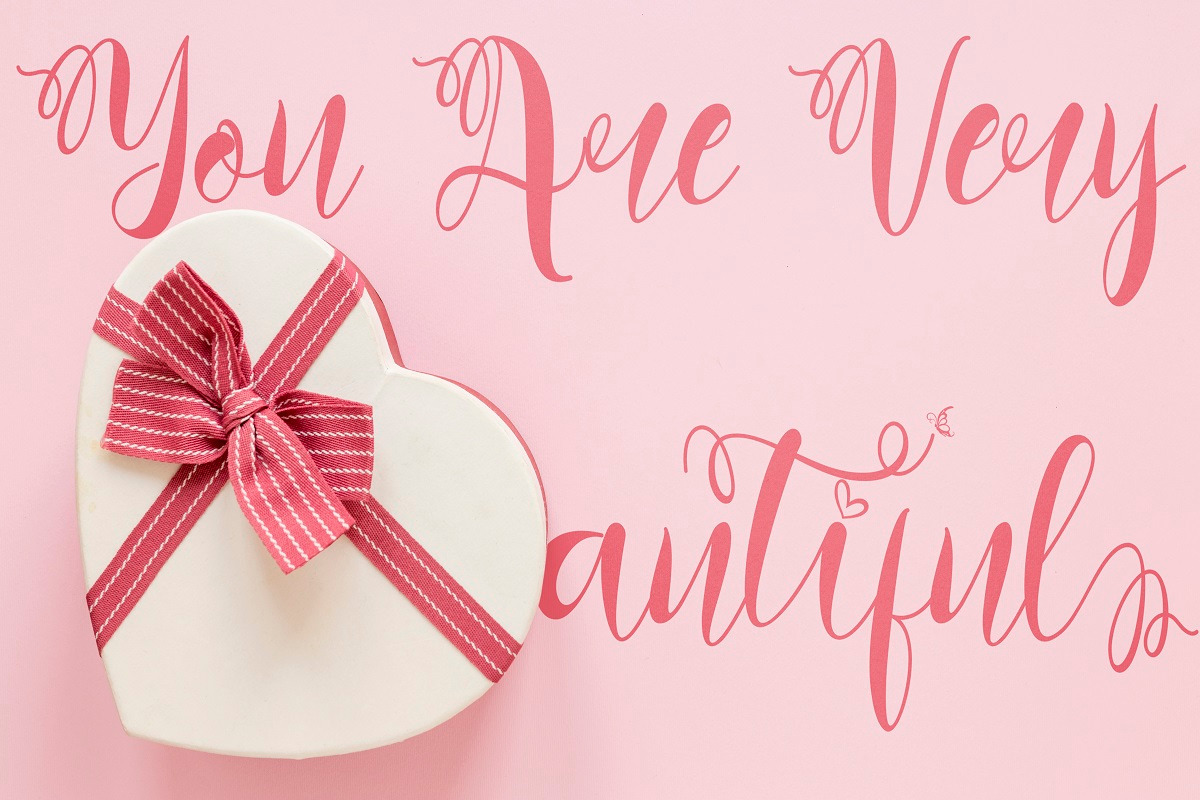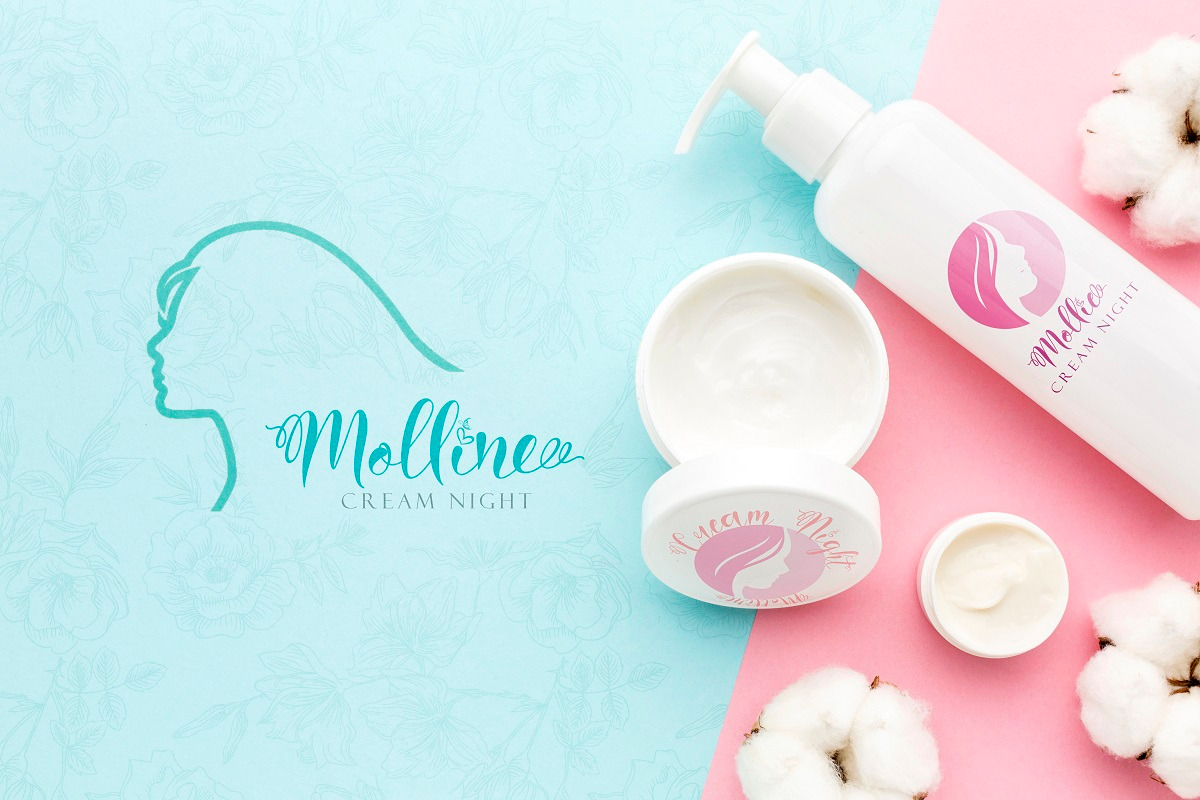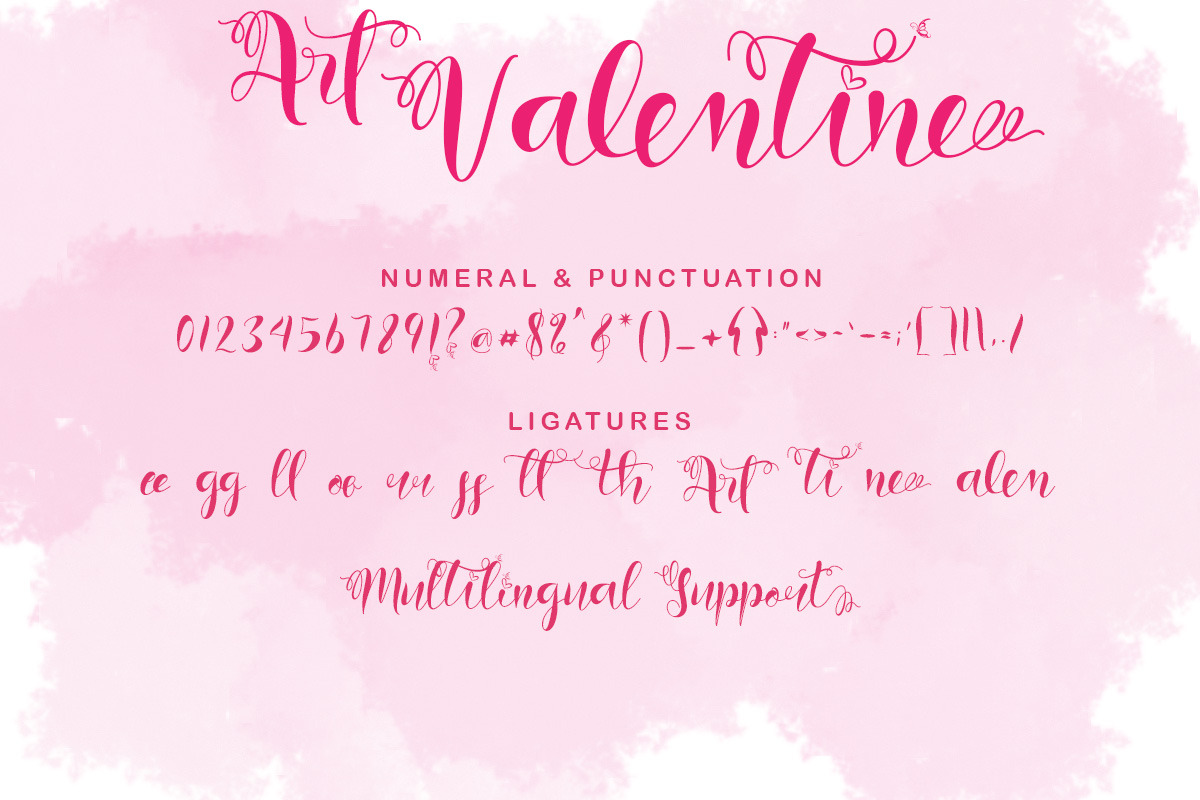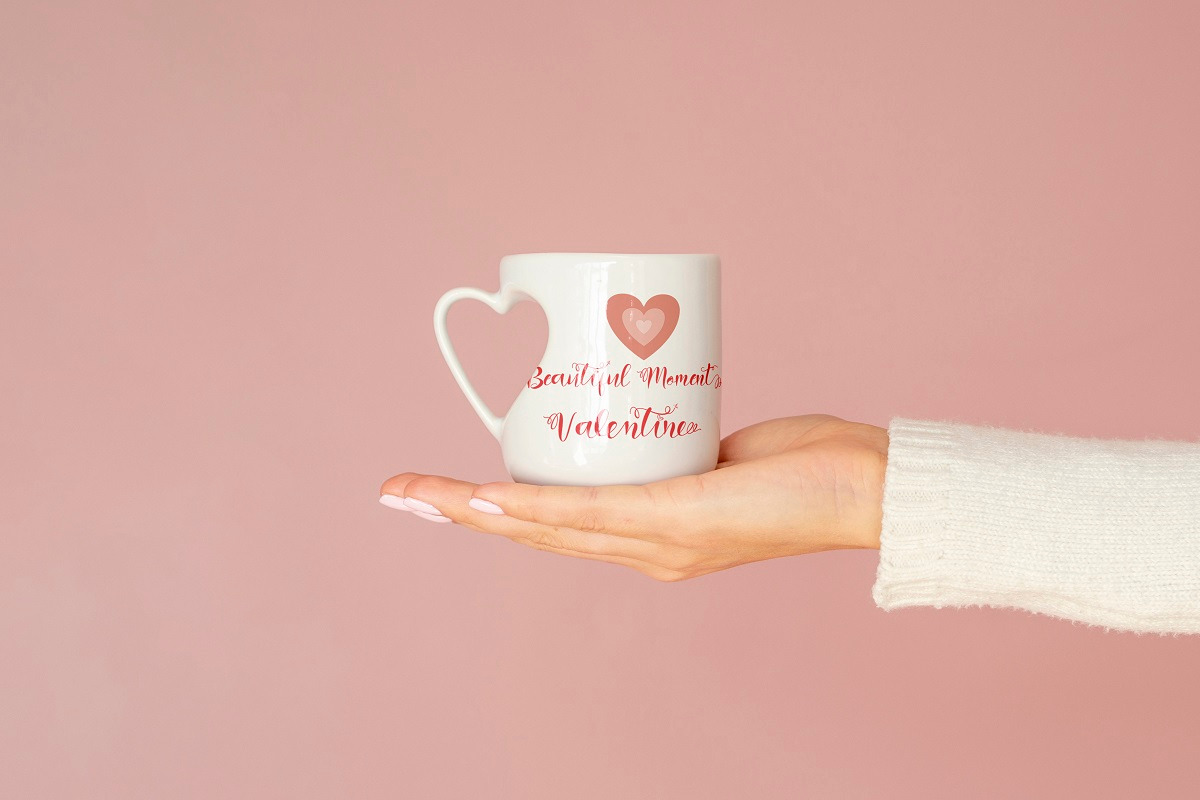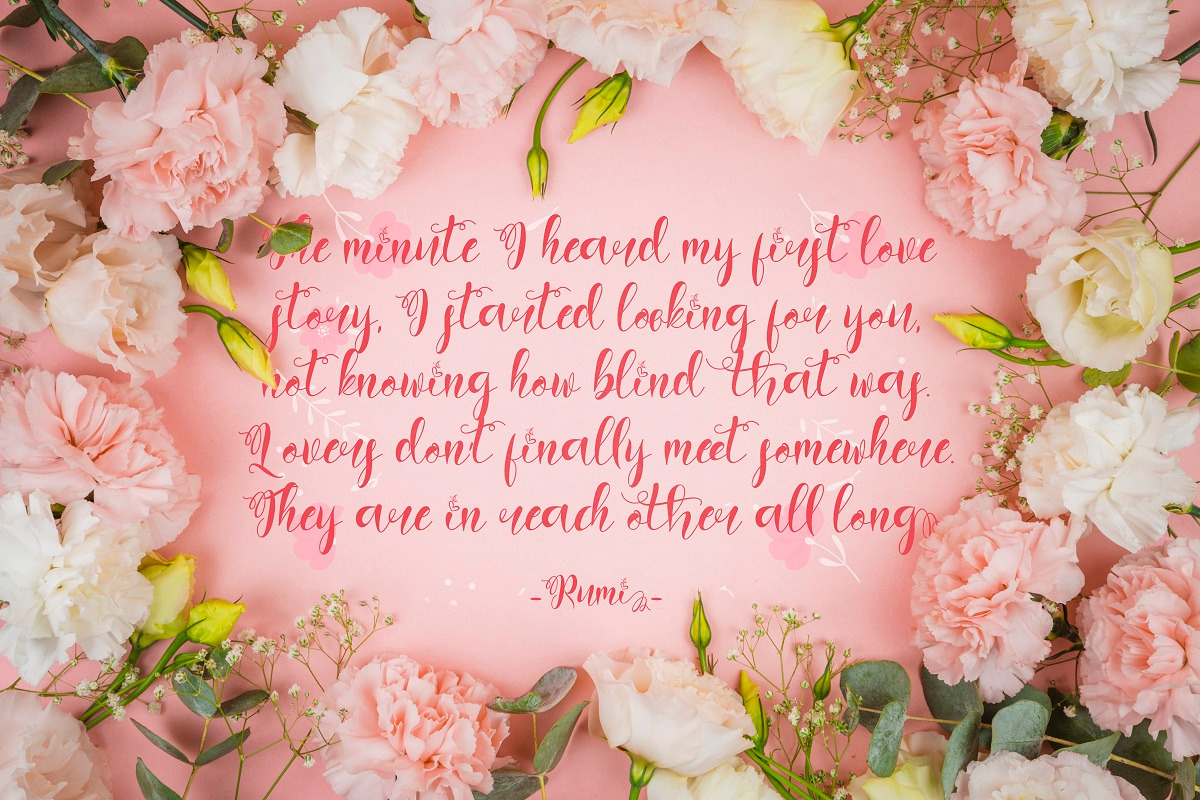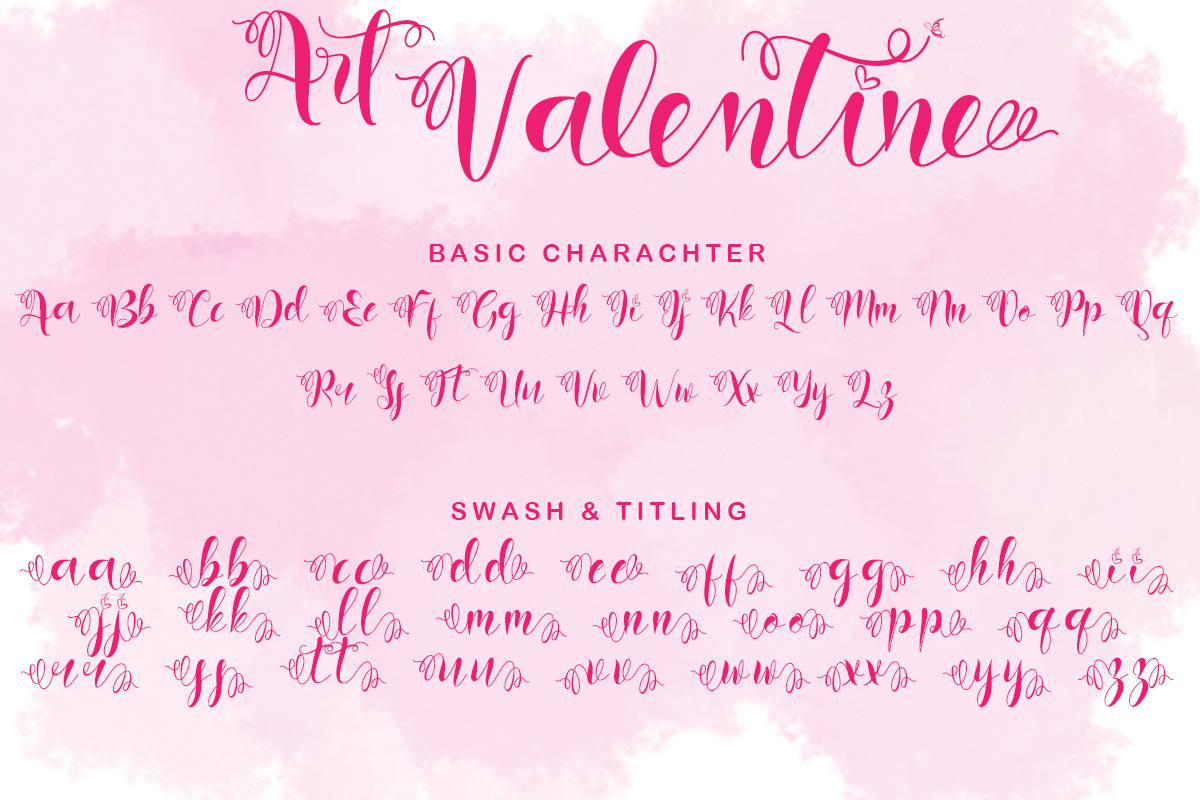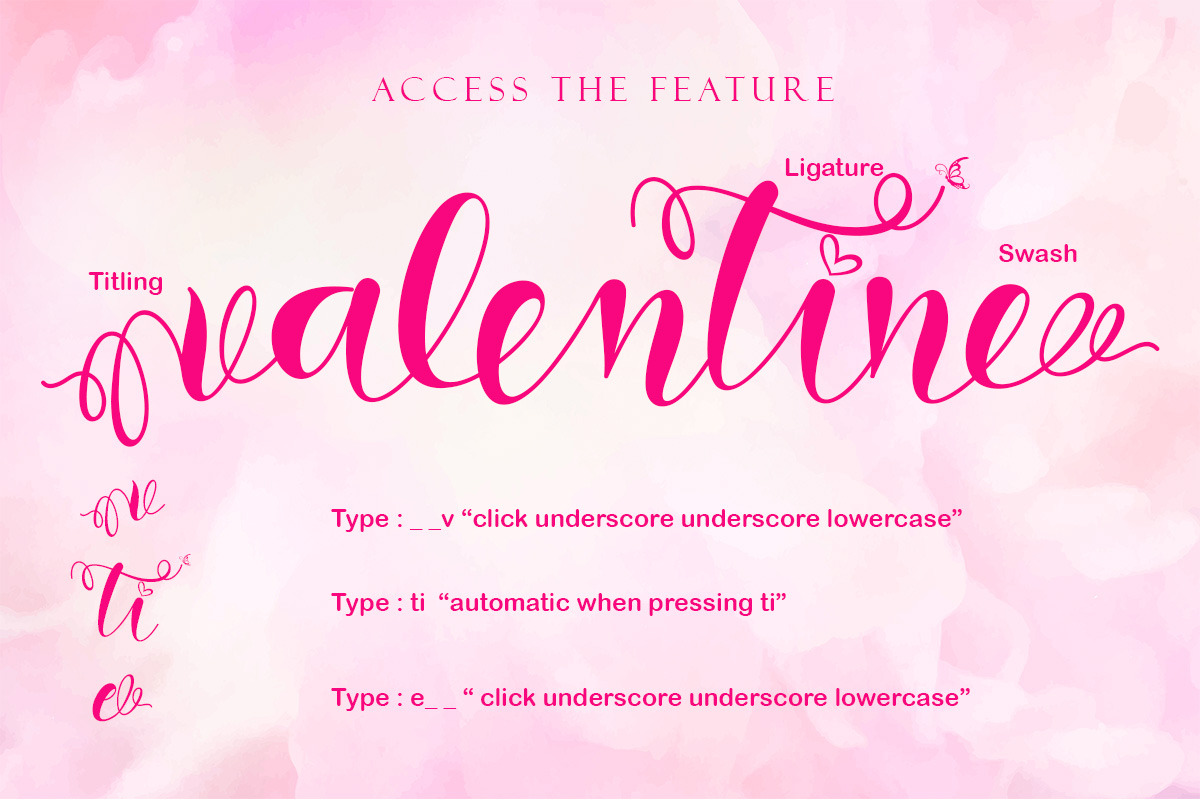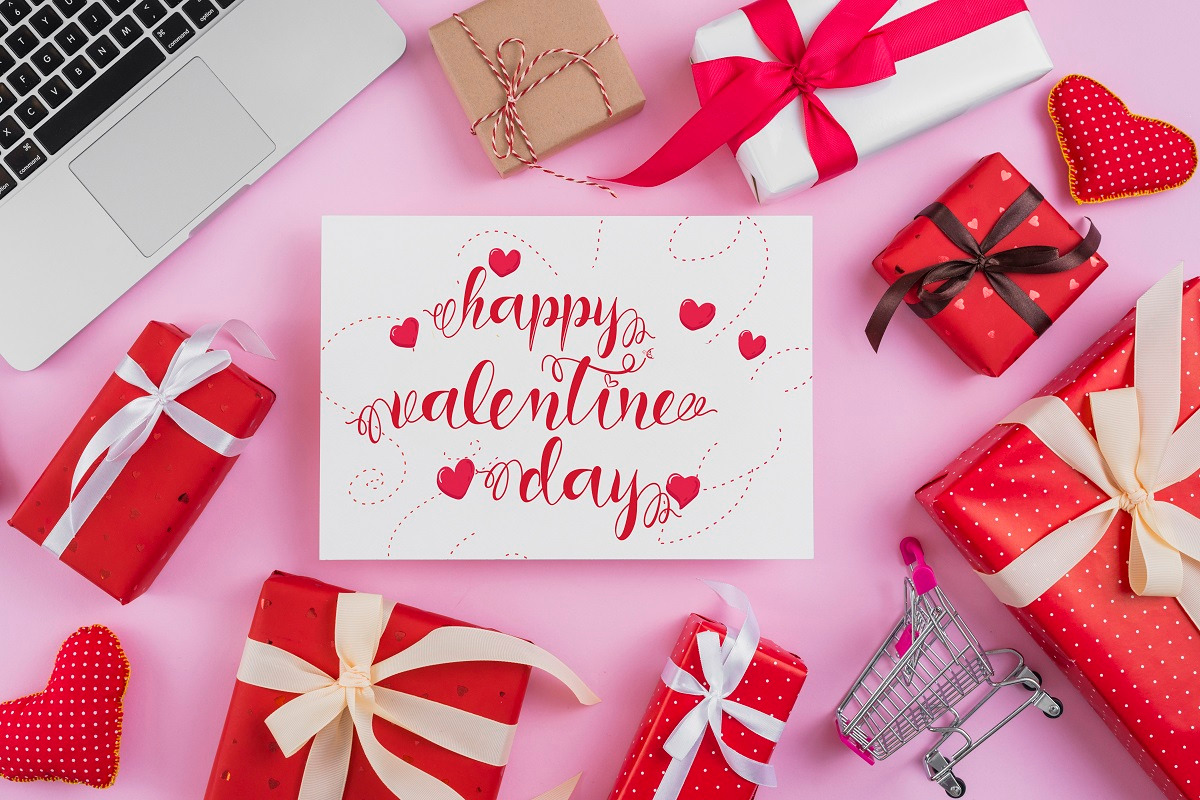
Art Valentine
Art Valentine is a very pretty and unique font, with curves in the subtle letters and swashes and ligatures that are very pretty and elegant. The use of tails on letters is very simple and easy so that consumers can easily use decorations on letters. This font is perfect for your Valentine's Day and various other jobs such as weddings, invitations, logos, branding, banners, posters, social media, and more.